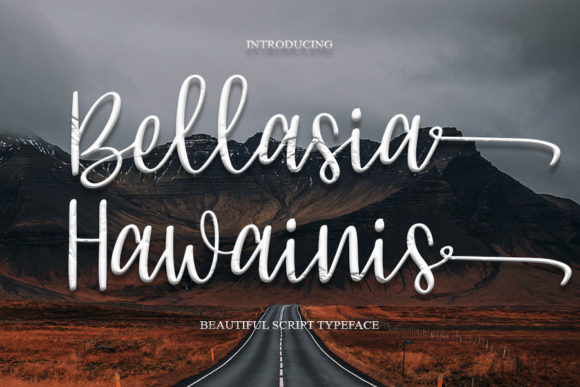
Step into the world of Bellasia Hawainis, a script font that will leave you spellbound with its romantic and dainty aura. This captivating font embodies elegance and modernity, making it the perfect choice for those seeking to create designs that exude sophistication and charm.
With Bellasia Hawainis, you can effortlessly craft stunning logos that command attention, branding that leaves a lasting impression, and invitations that ignite the spirit of celebration. Its delicate strokes bring a touch of grace to stationery, wedding designs, and social media posts, ensuring that your messages convey a sense of refinement and beauty.
Bellasia Hawainis is not just a font; it's an artistic expression that breathes life into your creative endeavors. Its versatility extends to a wide range of applications, including posters, flyers, brochures, and product packaging. Imagine your designs adorned with this elegant script, captivating audiences with its timeless allure.
Unleash your creativity and let Bellasia Hawainis guide you on a journey of visual storytelling. Its PUA encoding grants you seamless access to an array of glyphs and swashes, empowering you to add intricate details and flourishes that elevate your designs to new heights.
Join the growing community of designers who have embraced Bellasia Hawainis as their font of choice. Discover why this exquisite script has become a favorite among those seeking fonts for label design. Its ability to transform ordinary labels into works of art has made it an indispensable tool for businesses looking to create a lasting impact.
Bellasia Hawainis is more than just a font; it's an experience that will transform your creative vision into a tangible reality. Immerse yourself in its enchanting world and witness the magic it brings to your designs. Embrace the allure of Bellasia Hawainis today and let your creativity soar to new heights.